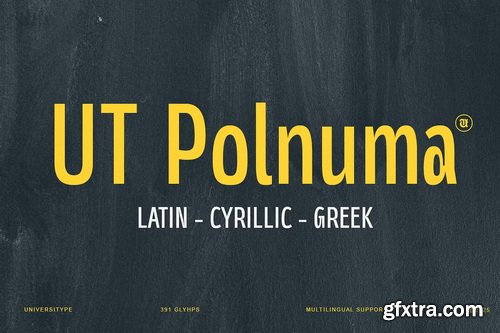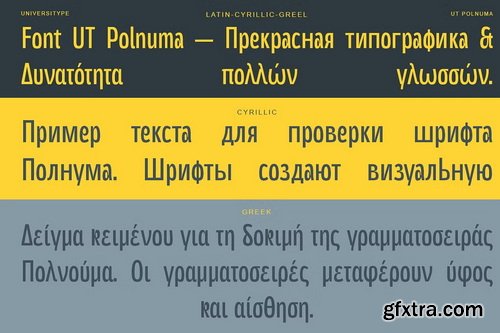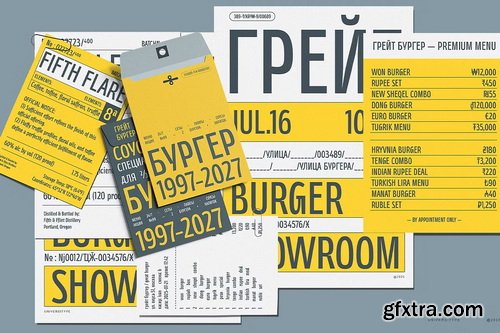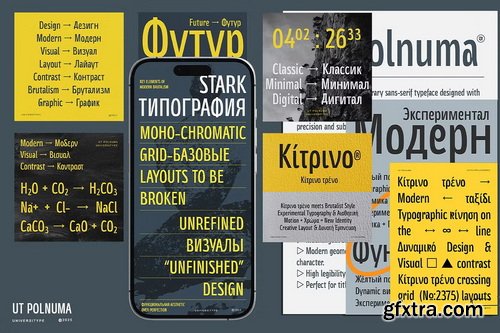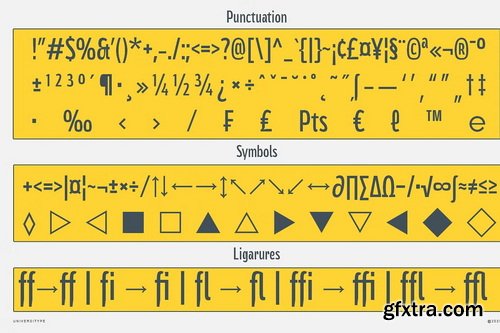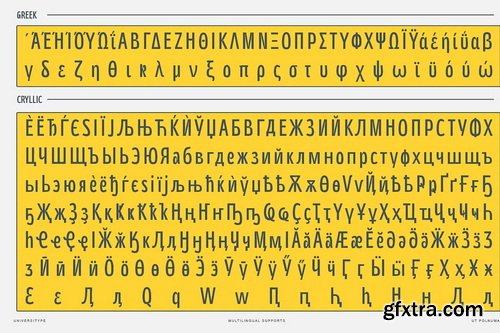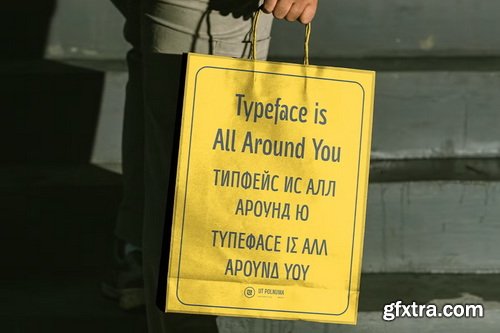
- Introducing UT Polnuma, a versatile and modern sans-serif typeface from Universitype. Designed with a focus on readability and legibility, UT Polnuma is perfect for both digital and print media. Its clean lines and geometric shapes make it suitable for a wide range of applications, from branding and advertising to editorial design and web typography.
- UT Polnuma is ideal for graphic designers, typographers, and creative professionals who are looking for a contemporary font that can be used across multiple platforms and languages. Its multilingual support makes it particularly appealing to those working in global markets.